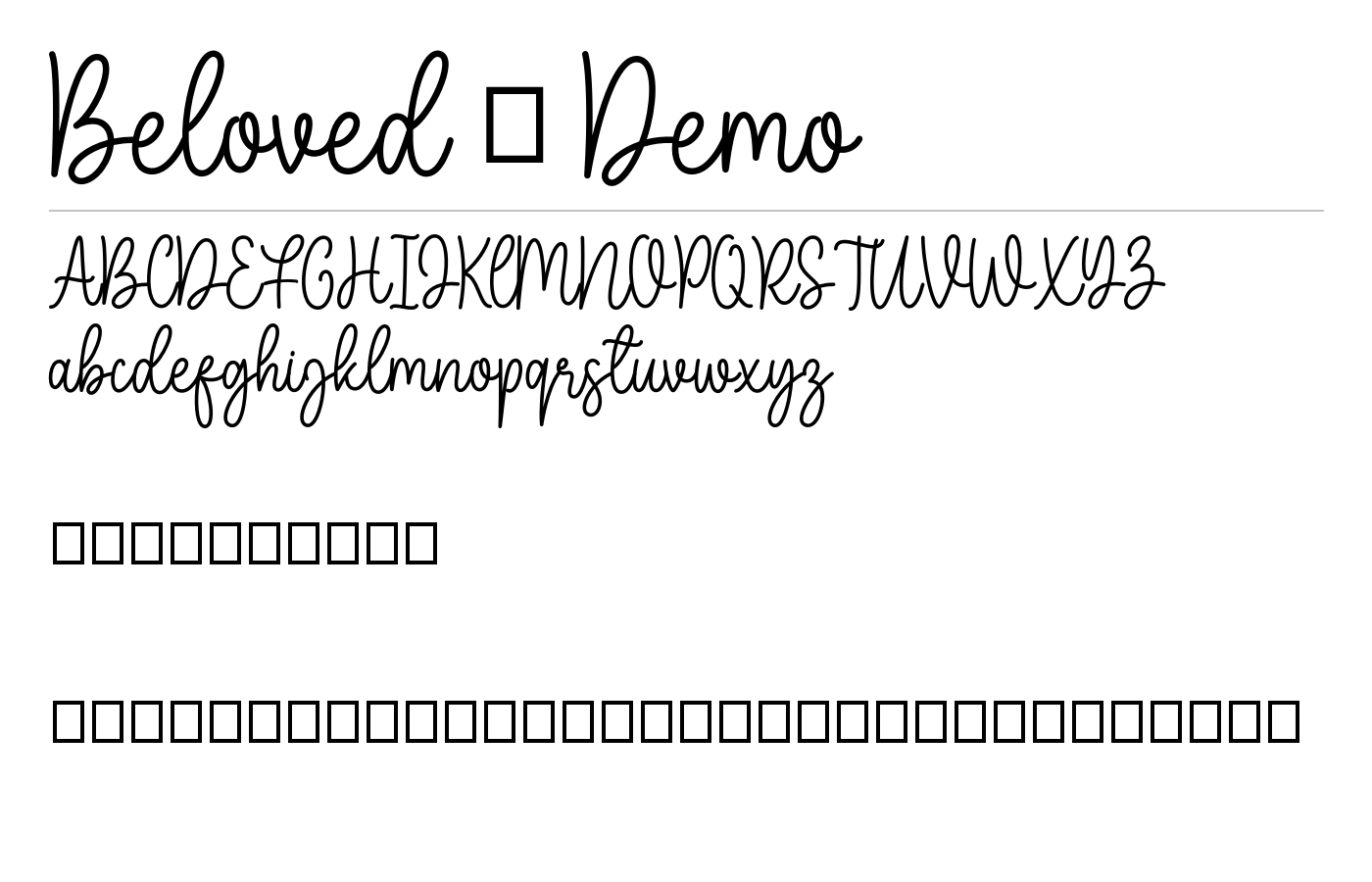
Beloved is a playful and elegant script font with a light, airy feel and smooth, flowing strokes that mimic natural handwriting. Its tall x-height and slightly condensed letterforms make it both charming and readable, ideal for adding a personal, approachable touch to branding, invitations, and creative projects. This font works beautifully in headlines or short text where a friendly yet stylish vibe is desired.
Beloved - Demo Font
About Beloved - Demo Font
| Font family | Beloved - Demo Font |
| Designer | Rayvaldo Rizki Pratama Augusta |